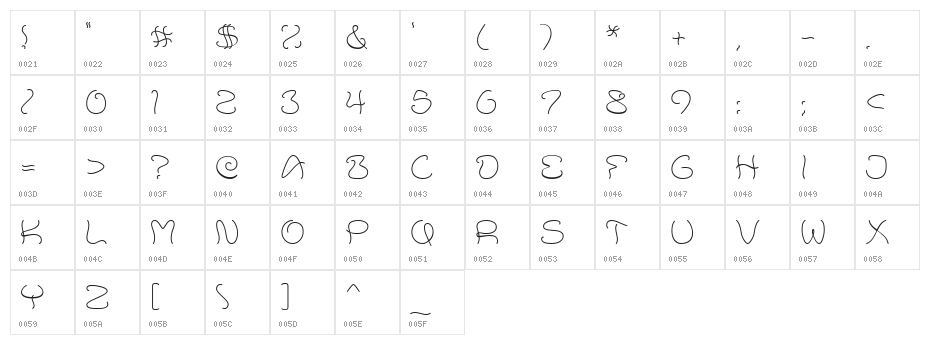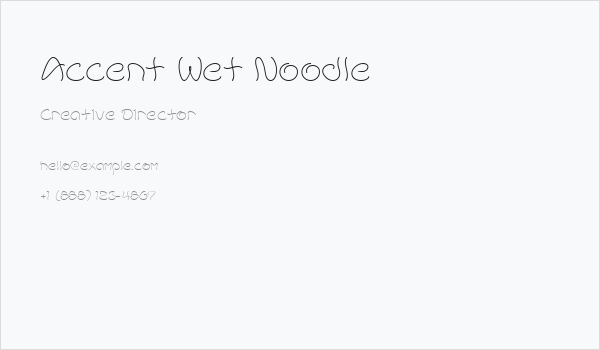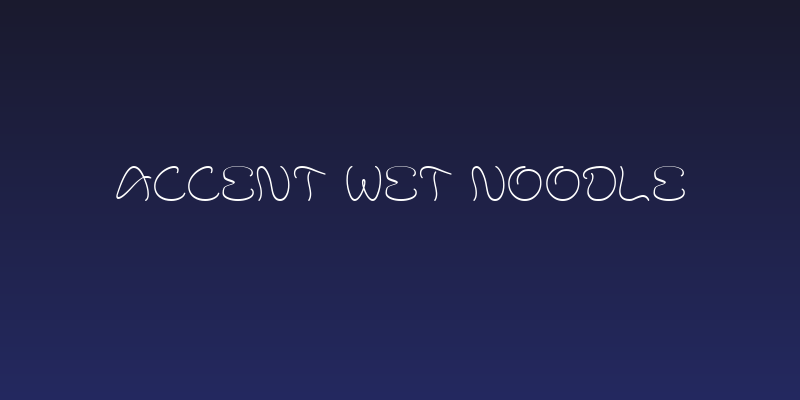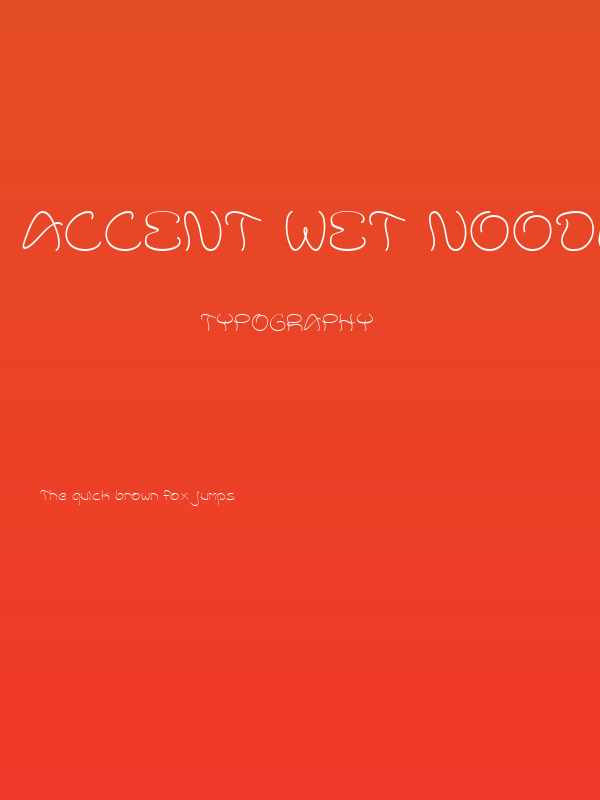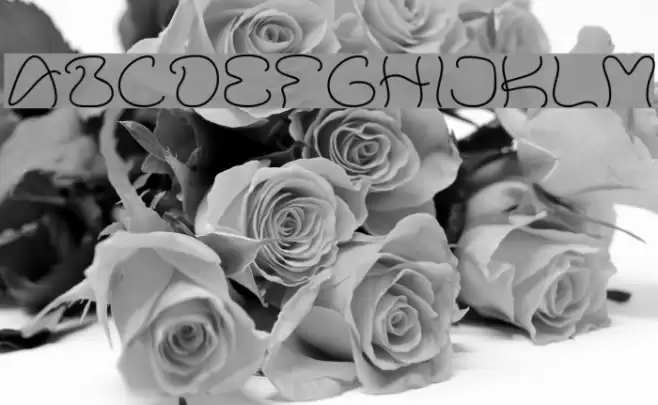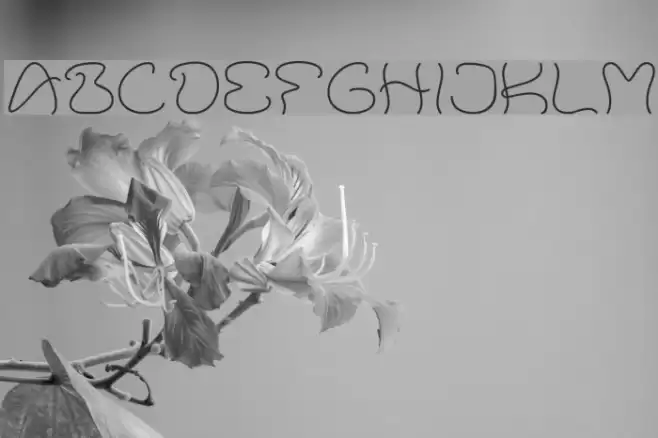
Accent Wet Noodle Font
Accent Wet Noodle Description
This font features a whimsical and playful design, characterized by its fluid, noodle-like strokes that give it a unique and artistic appearance. The letters are crafted with a continuous, flowing line that creates a sense of movement and dynamism. The uppercase and lowercase letters maintain a consistent style, with rounded edges and a slightly irregular form that adds to its charm. The numbers and special characters follow the same design principles, ensuring a cohesive look across all elements. This font's distinctive style makes it stand out, offering a creative and informal vibe.
| Overall Style | Playful, Artistic |
| Use Case | Headlines, Logos, Creative projects |
| Proposed Projects | Ideal for creative projects such as children's books, playful branding, artistic posters, and unique invitations. |